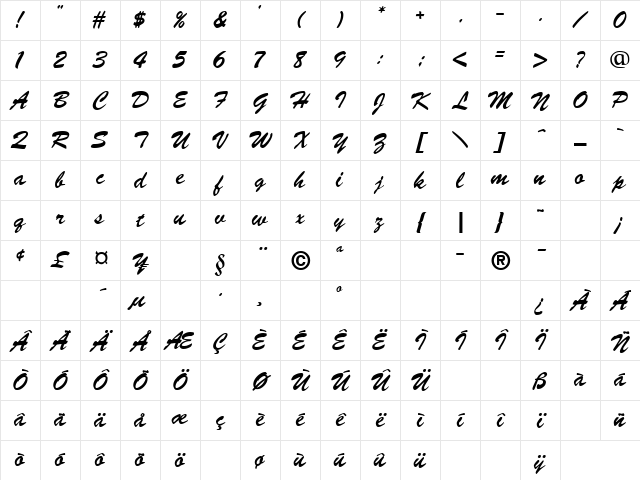
Urlifaweigh Regular
Design Context for Urlifaweigh
Urlifaweigh is a composed and adaptable typeface that performs quietly and consistently across a wide range of design contexts.